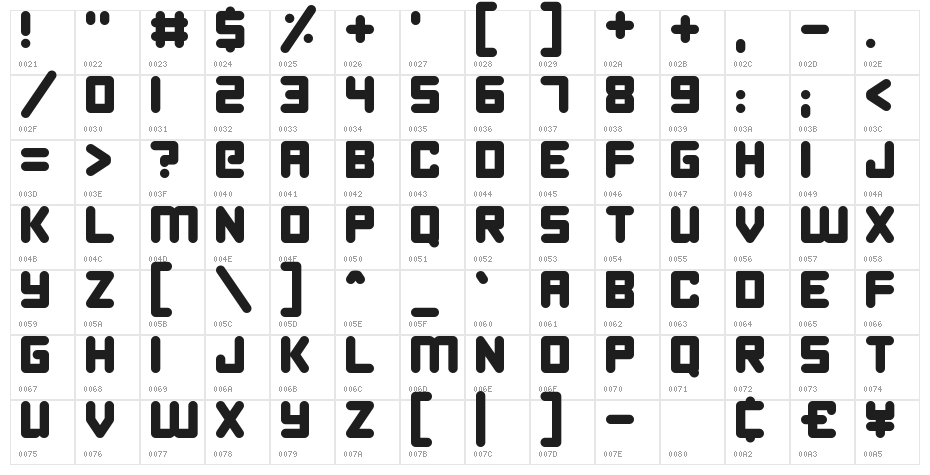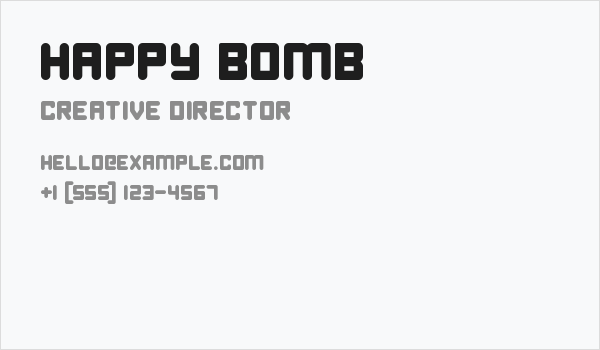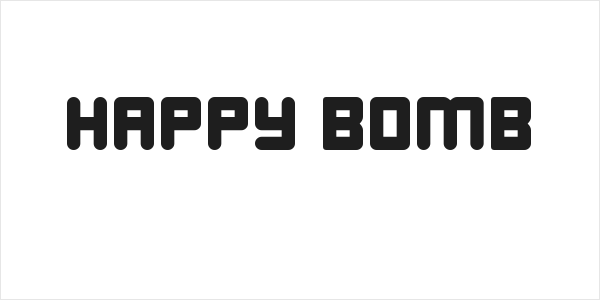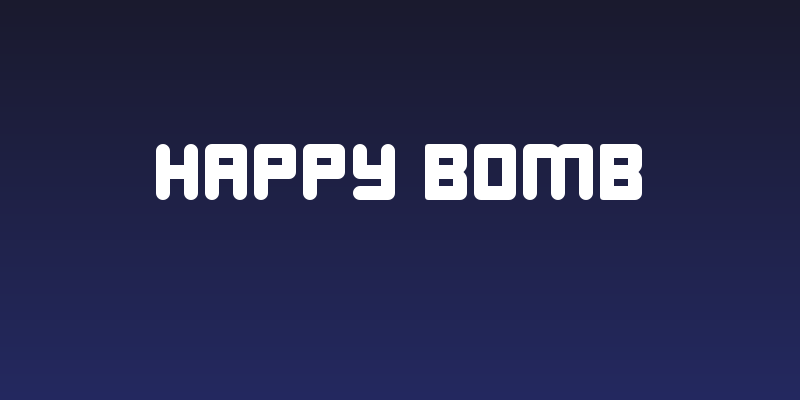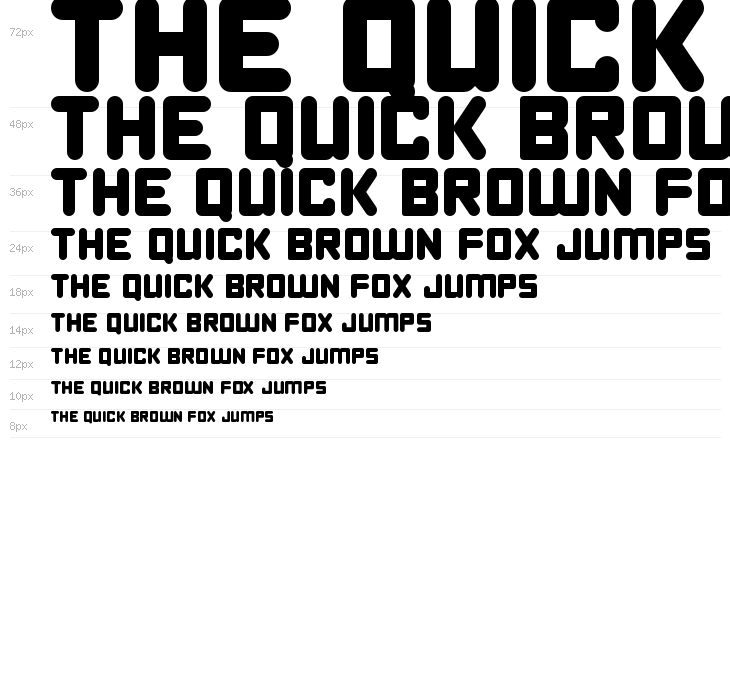
Happy Bomb Font
Happy Bomb Description
This font features bold, rounded characters with a modern and playful aesthetic. The letters are uniformly thick, providing a strong visual impact. The rounded edges give it a friendly and approachable feel, making it suitable for a variety of creative projects. The numerals and special characters maintain the same boldness and rounded style, ensuring consistency throughout. This font is ideal for projects that require a fun and engaging look, such as children's books, playful branding, or eye-catching headlines.
HAPPY-BOMB UPPERCASE
HAPPY-BOMB LOWERCASE
HAPPY-BOMB OTHER CHARS
| Proposed Projects | Ideal for children's books, playful branding, headlines, and creative posters. |